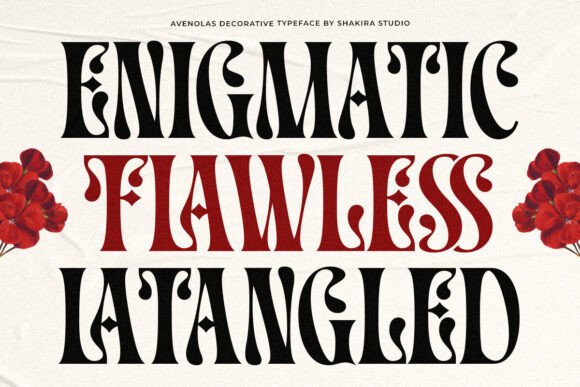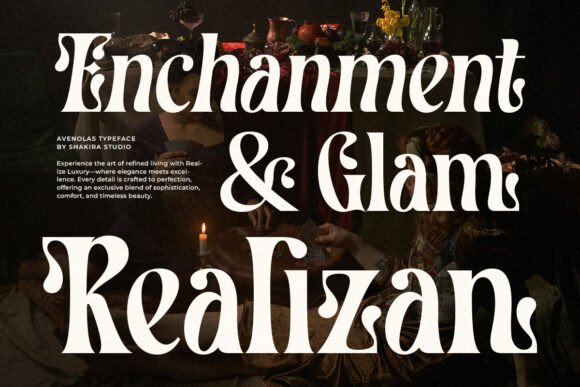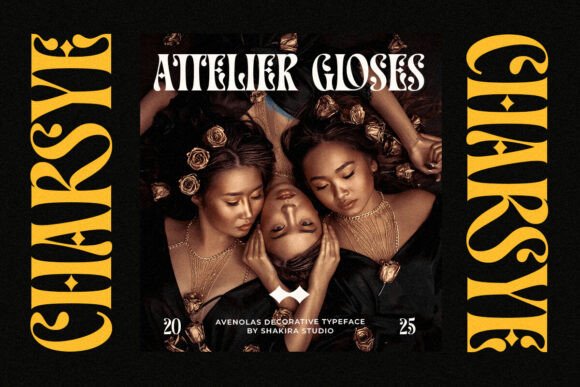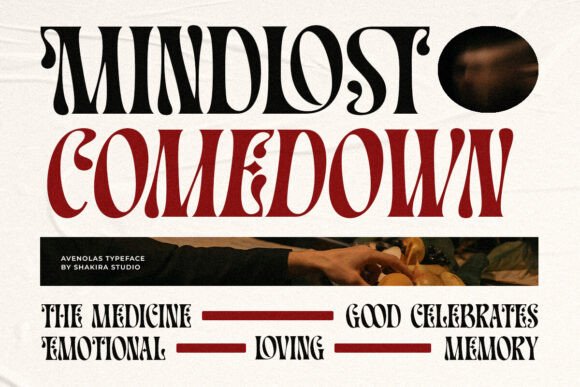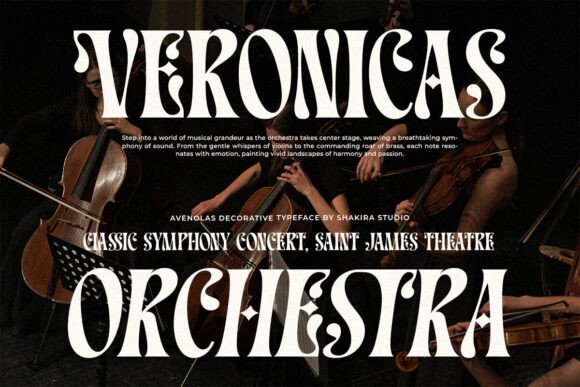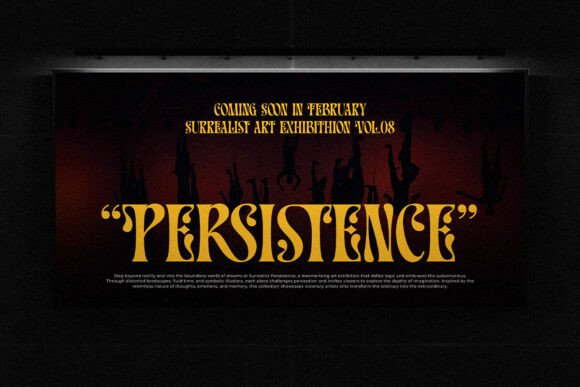
Avenolas Font: Elevate Your Designs with Elegance and Uniqueness
In the world of typography, a font can make or break a design. It’s the perfect blend of form and function, conveying a message while captivating the audience’s attention. If you’re on the hunt for a typeface that exudes both classic sophistication and modern flair, look no further than Avenolas Font. This decorative serif display font is a game-changer for designers and crafters seeking to add a touch of elegance and uniqueness to their projects.
The Essence of Avenolas Font
Avenolas is more than just a font – it’s an experience. Designed to bring together the best of both worlds, this stunning typeface seamlessly blends traditional and contemporary elements. The result is a decorative serif display font that commands attention while maintaining an air of refinement. Whether you’re working on a branding campaign, creating a poster, or designing a magazine, Avenolas is the perfect companion to help you achieve your creative vision.
Key Features of Avenolas Font
So, what sets Avenolas apart from other fonts? Here are some of its standout features:
- Alternates and Ligatures: Avenolas comes equipped with a range of alternates and ligatures, giving designers the flexibility to experiment with different compositions and create truly unique designs.
- Multilingual Support: With support for multiple languages, Avenolas ensures that your designs can reach a global audience, no matter what language they’re in.
- Decorative Serif: The font’s decorative serif style adds a touch of sophistication and elegance, perfect for designs that require a bit of luxury and refinement.
Avenolas Font is incredibly versatile, making it suitable for a wide range of design projects. Here are some ideas to get you started:
- Branding: Create a lasting impression with a unique and memorable brand identity that showcases your personality and style.
- Posters: Grab attention with eye-catching posters that feature bold, elegant typography.
- Magazines: Add a touch of sophistication to your magazine designs with Avenolas’ refined and classic style.
- Product Packaging: Stand out on store shelves with packaging that features a distinctive and characterful design.
- Signage: Create signs that command attention and leave a lasting impression with Avenolas’ elegant and refined style.
Why Choose Avenolas Font?
With so many fonts available, why choose Avenolas? Here are just a few reasons why this typeface stands out from the crowd:
- Unique and Elegant: Avenolas offers a perfect blend of uniqueness and elegance, making it perfect for designs that require a bit of sophistication and refinement.
- Flexible: With alternates and ligatures, Avenolas provides designers with the flexibility to experiment with different compositions and create truly unique designs.
- Multilingual Support: Avenolas ensures that your designs can reach a global audience, no matter what language they’re in.
| Font Name | Avenolas Font |
| Author | Shakira Studio |
If you’re looking for a font that delivers a vintage, stylish, and artistic impression, Avenolas is the perfect choice for your design projects. With its unique blend of classic and modern elements, this decorative serif display font is sure to elevate your designs and leave a lasting impression. So why wait? Discover the power of Avenolas Font today and take your designs to the next level!
Whether you’re a seasoned designer or a crafty DIY enthusiast, Avenolas Font is the perfect addition to your creative toolkit. So go ahead, get creative, and see the amazing things you can achieve with Avenolas!